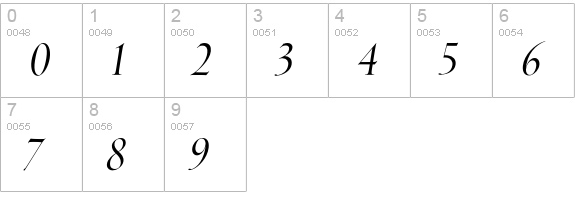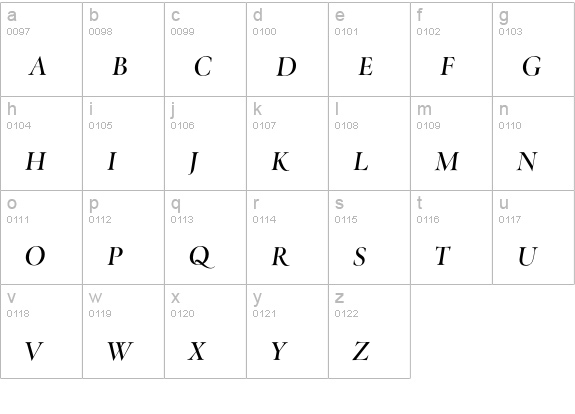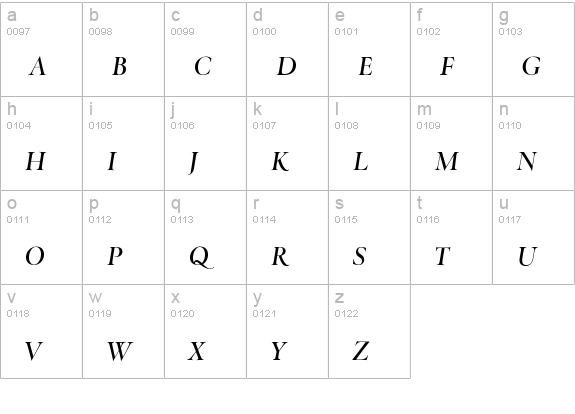
ThrohandRegular-ItalicExpert Font Details
ThrohandRegular-ItalicExpert font is a stunning typeface that exudes elegance and sophistication. With its sleek and stylish letterforms, this font is perfect for adding a touch of class to any design project. The italicized version of ThrohandRegular-ItalicExpert font adds a sense of dynamic movement and flair, making it ideal for emphasizing key words or phrases. Whether you are working on a logo, branding materials, or a website, this font will bring a professional and polished look to your work. What sets ThrohandRegular-ItalicExpert font apart is not only its exceptional design, but also the fact that it is free to download. Yes, you read that right - this remarkable font is freely available at FontsMarket.com. Now you can elevate your designs without breaking the bank. Designed with precision and attention to detail, ThrohandRegular-ItalicExpert font is sure to impress. Its clean lines and thoughtful curves make it highly legible, ensuring that your message is conveyed effectively to your audience. Whether used in headlines, body text, or captions, this font will make a lasting impression. Don't miss out on this opportunity to enhance your design projects with ThrohandRegular-ItalicExpert font. Visit FontsMarket.com today and download this exceptional typeface for free. Elevate your designs with elegance and style, and let ThrohandRegular-ItalicExpert font be the perfect companion for your creative endeavors.